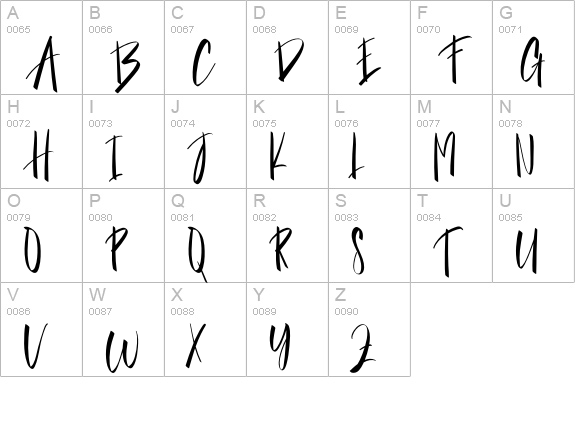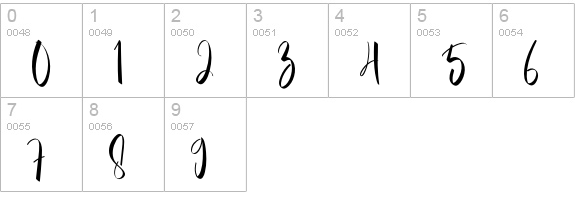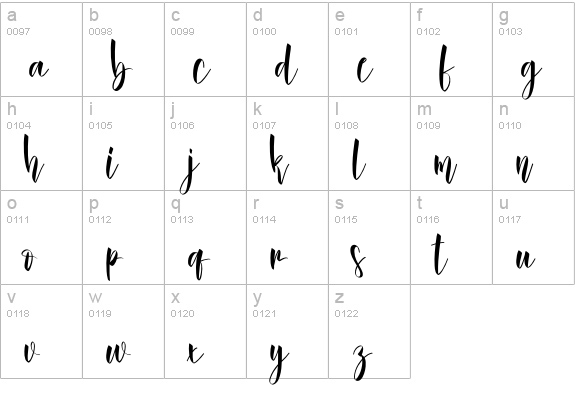
Santaclaus Christmas font is a whimsical and festive typeface perfect for all your holiday design needs. With its playful and cheerful style, this font captures the spirit of the season and brings a touch of magic to your projects. Whether you're creating holiday cards, gift tags, or party invitations, Santaclaus Christmas font is sure to add that extra festive flair.